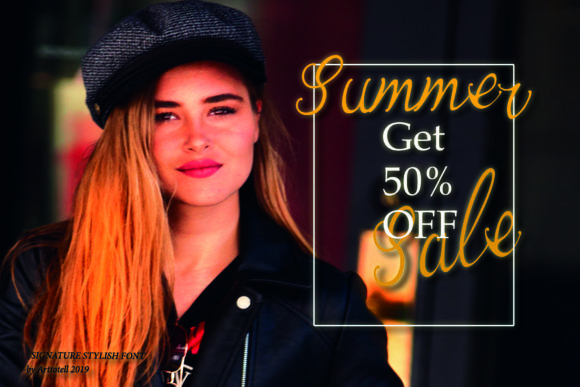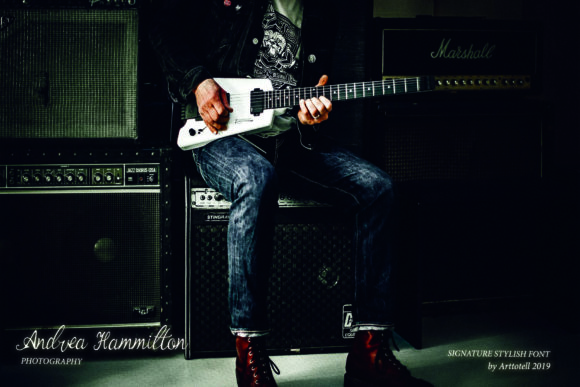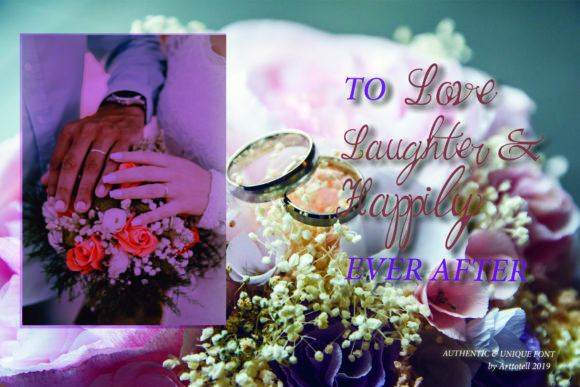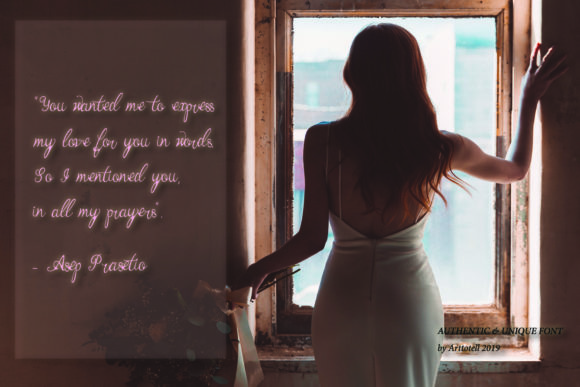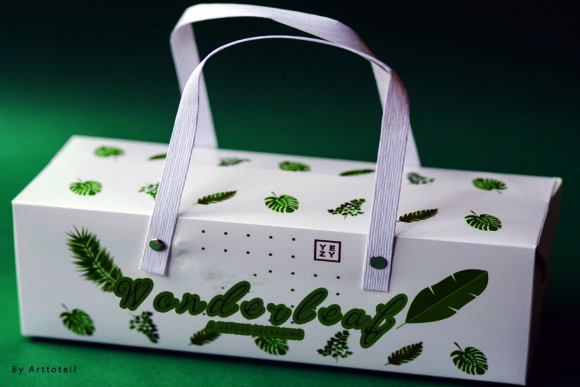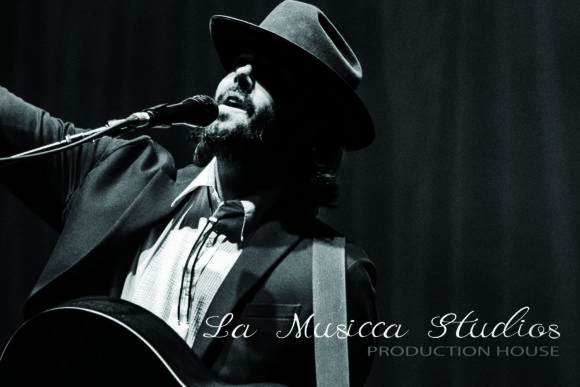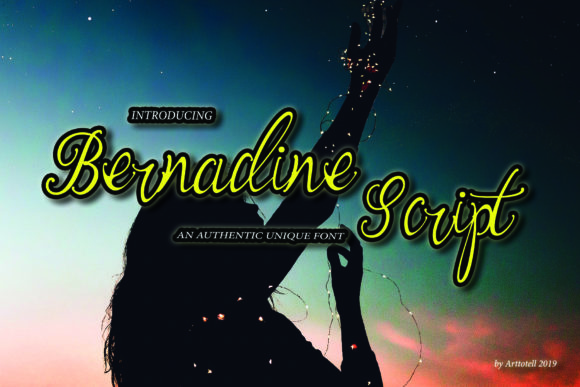
Bernadine Script Font: Elevate Your Designs with Elegant Calligraphy
In the world of typography, few fonts capture the essence of elegance and sophistication as beautifully as the Bernadine Script Font. This authentic, unique, and signature font is designed to bring a natural and elegant calligraphy look to a wide range of design projects. Whether you’re a designer, crafter, or simply someone who appreciates the art of beautiful writing, the Bernadine Script Font is an excellent addition to your toolkit.
What Makes Bernadine Script Font Stand Out?
The Bernadine Script Font is distinguished by its authentic and unique style, which mimics the natural flow and elegance of hand-written calligraphy. Unlike more uniform and mechanical fonts, Bernadine Script offers a variety of unique, handmade-look outcomes. This variability allows designers to combine different elements and create a wide range of designs that are both personal and captivating.
Versatility in Design Projects
One of the key benefits of the Bernadine Script Font is its versatility. It can be seamlessly integrated into various design projects, including but not limited to:
- Graphic design: From branding and logos to posters and flyers, Bernadine Script adds a touch of elegance and sophistication.
- Stationery: Enhance your invitations, greeting cards, and letters with a personal and stylish touch.
- Digital content: Elevate your blog posts, social media graphics, and website content with beautiful, engaging typography.
- Crafting: Perfect for crafters who love to add a personal touch to their projects, such as handmade cards, DIY decorations, and scrapbooking.
Ease of Use
Exploring the Unique Features
The Bernadine Script Font comes with a range of unique features that make it stand out:
- Natural and Elegant Look: The font’s design is inspired by traditional calligraphy, offering a natural and elegant appearance that captures the eye.
- Handmade-Look Outcomes: With its varied and unique strokes, the Bernadine Script Font provides a genuine handmade look that can add a personal touch to any design.
- Large Range of Designs: The font’s versatility means it can be used in a multitude of design contexts, from formal to casual, and everything in between.
Tips for Using Bernadine Script Font Effectively
To make the most of the Bernadine Script Font, consider the following tips:
- Mix and Match: Don’t be afraid to combine Bernadine Script with other fonts to create visual interest and hierarchy in your designs.
- Adjust Size and Color: Play with the size and color of the text to emphasize certain elements and create a focal point.
- Use in Combination with Images: The elegant nature of Bernadine Script makes it a great complement to photography and illustrations. Use it to add a textual element that enhances the visual narrative.
The Bernadine Script Font is a valuable resource for anyone looking to add a touch of elegance and sophistication to their designs. With its authentic calligraphy look, ease of use, and versatility, it’s an excellent choice for designers and crafters alike. Whether you’re working on a professional project or a personal crafting endeavor, the Bernadine Script Font can help you achieve a beautiful, unique, and engaging outcome.